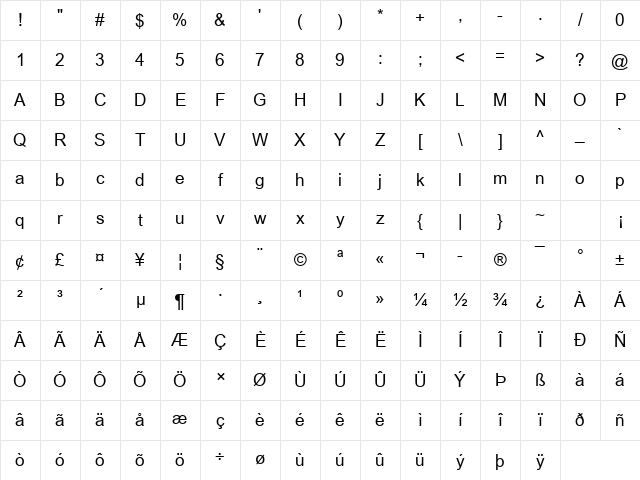
Utsaah Regular
Complete Utsaah Regular glyph index. Displaying only characters natively supported by Utsaah Regular font.
Design Context for Utsaah
Utsaah is a composed and adaptable typeface that performs quietly and consistently across a wide range of design contexts.